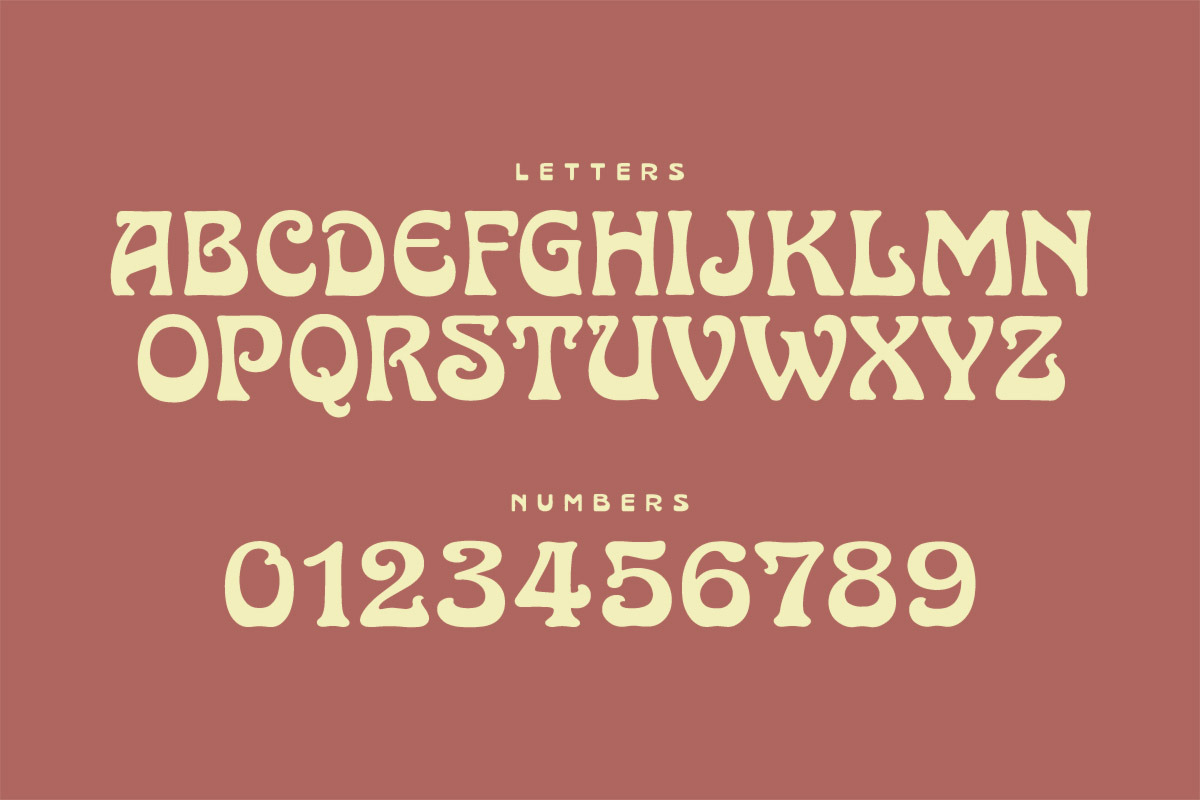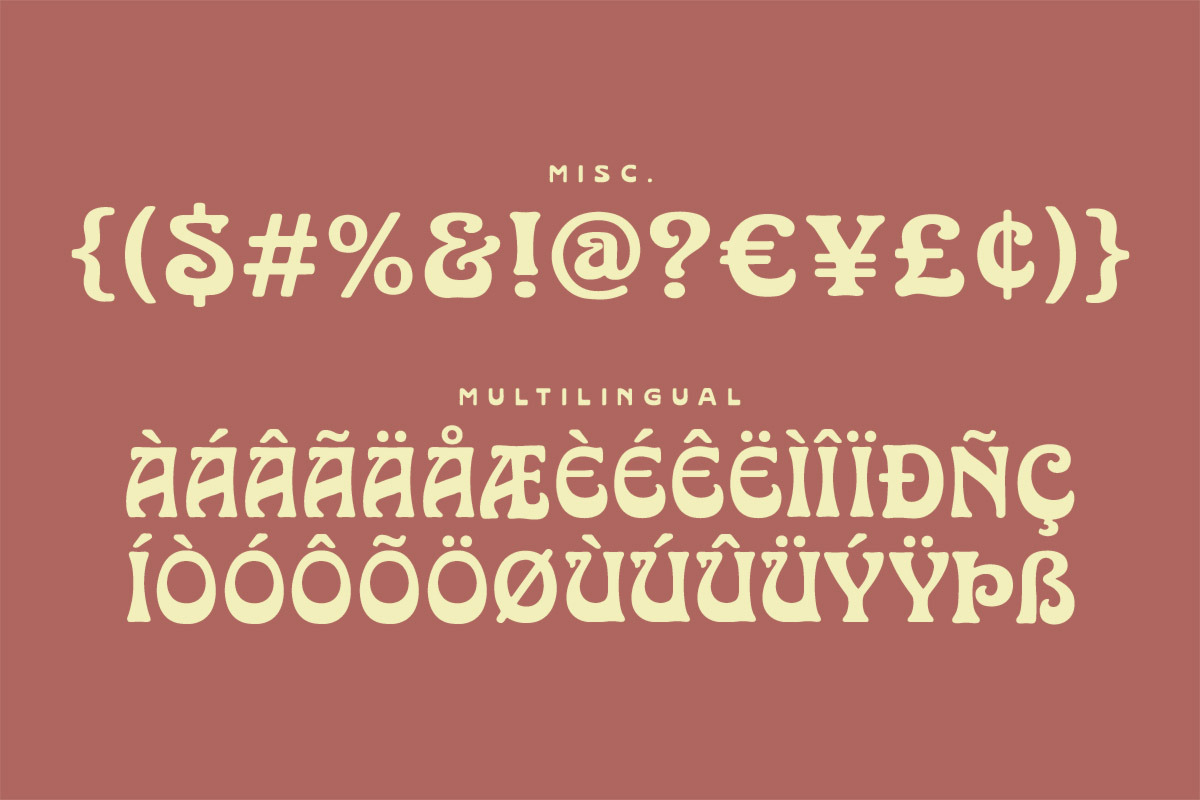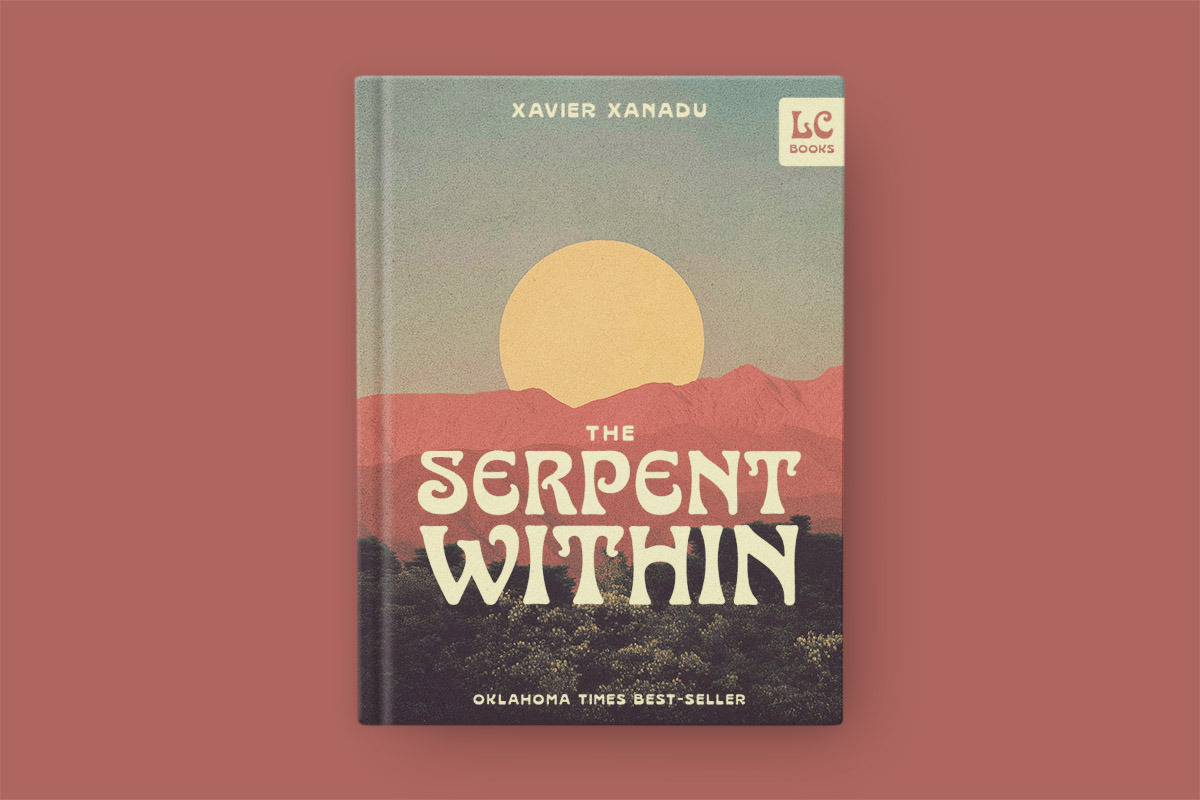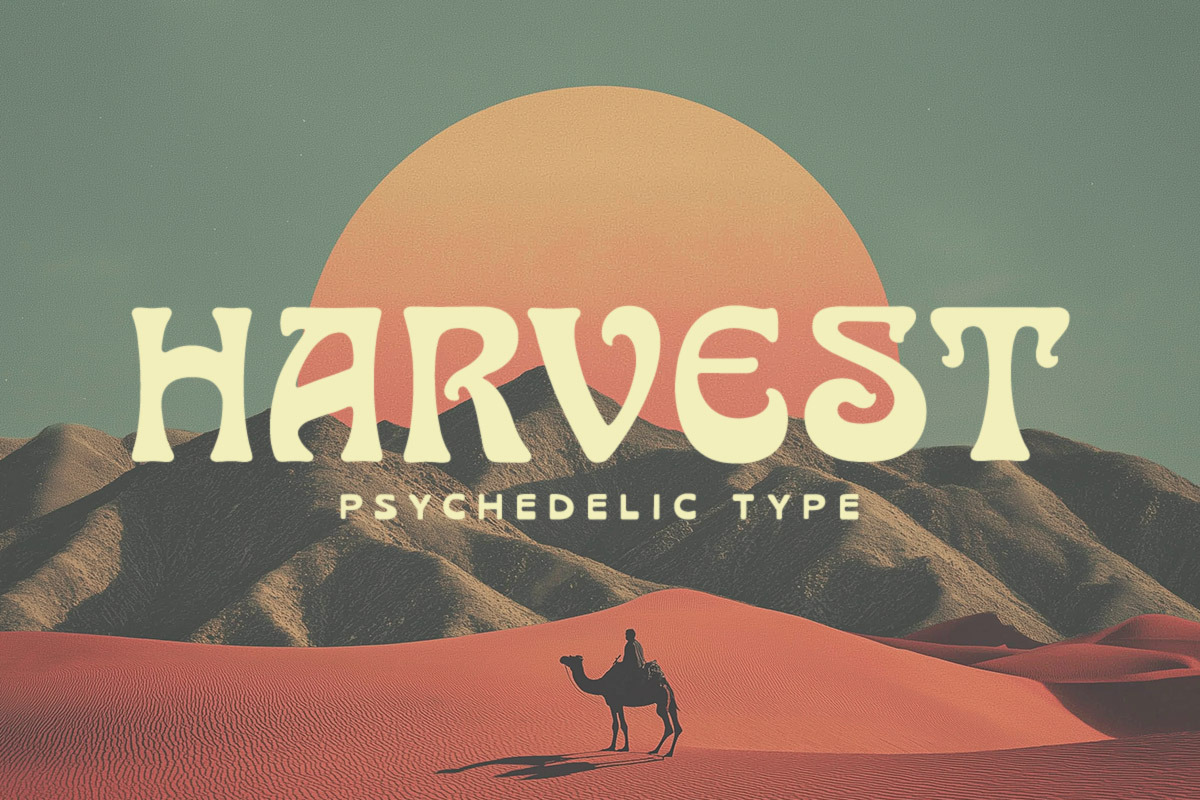
Harvest Typeface
Harvest is a warm and wavy psychedelic display font inspired by 70s retro posters and vintage groove typography. Perfect for album covers, festival branding, packaging, posters, book covers, and bold nostalgic logos with a funky laid-back vibe.